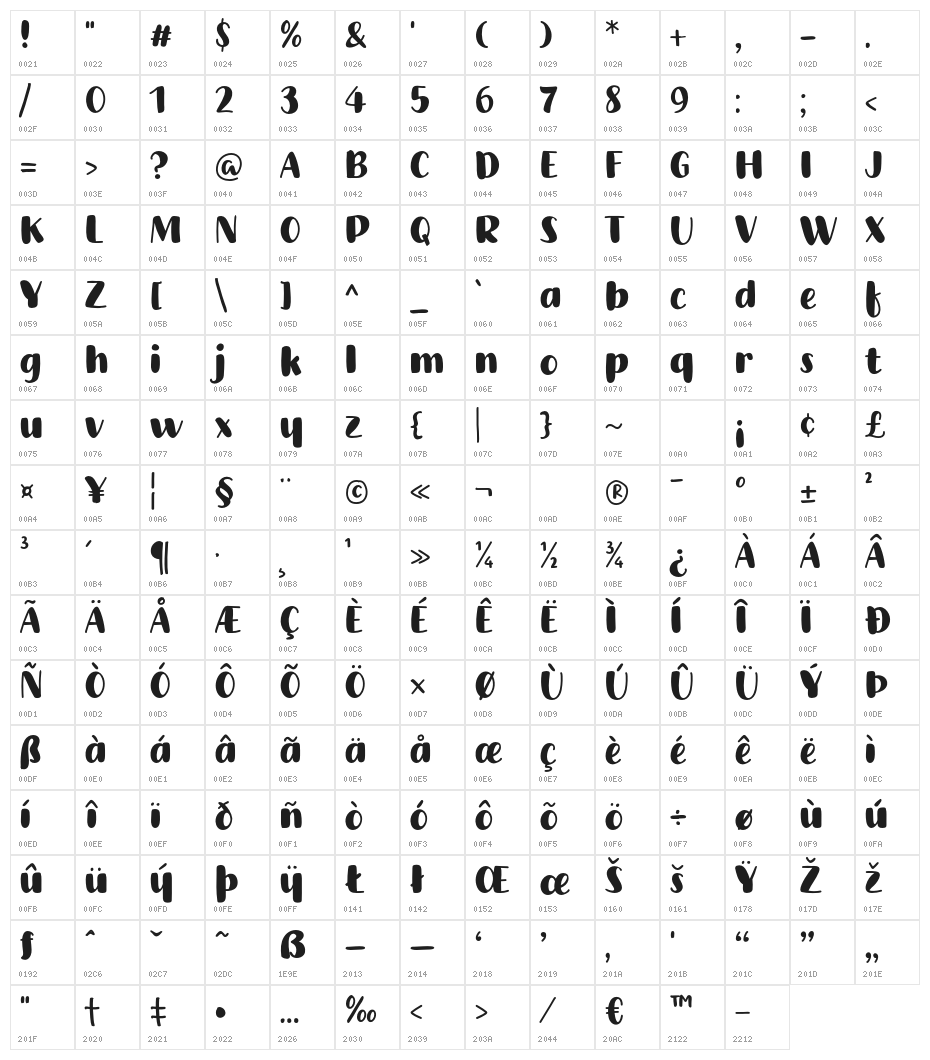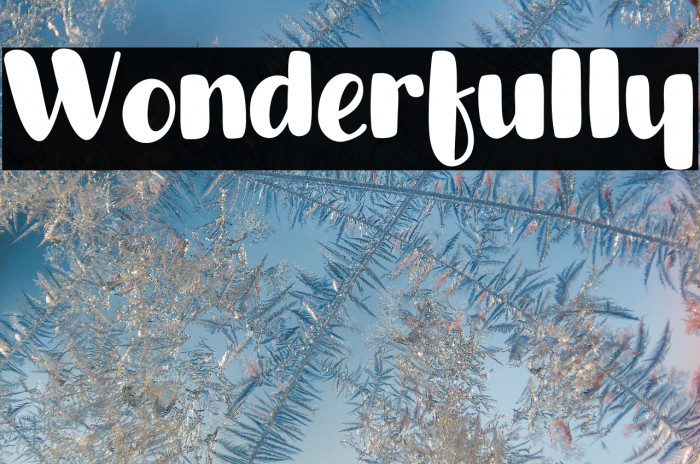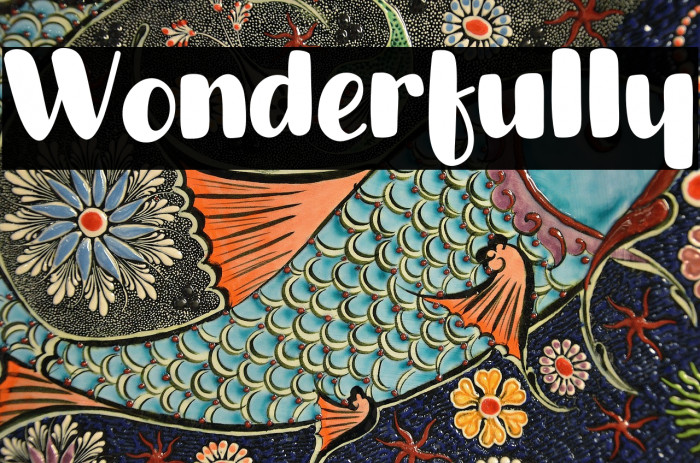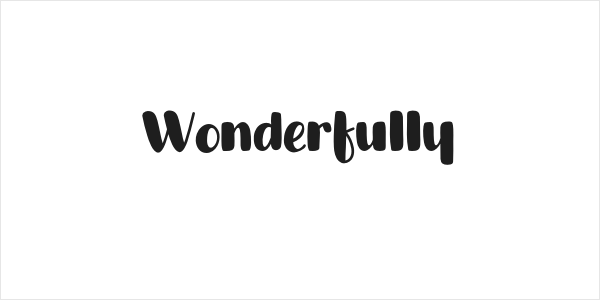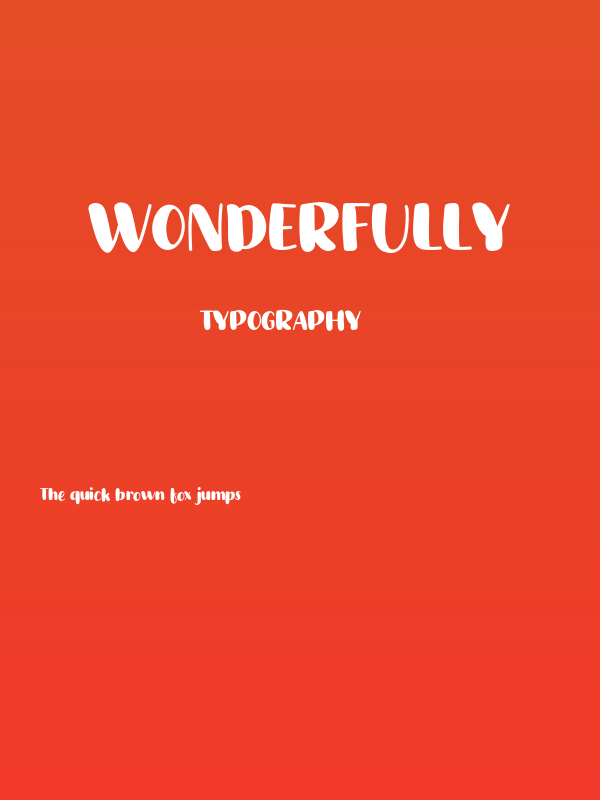
Wonderfully Font
Wonderfully Description
This font features a bold and playful script style with a handwritten feel. The letters are rounded and have a smooth flow, creating a sense of movement and energy. The uppercase and lowercase letters are well-balanced, with a consistent stroke width that adds to the font's bold appearance. The numbers and special characters maintain the same playful and dynamic style, making the font versatile for various uses. Its overall appearance is friendly and approachable, suitable for projects that require a personal touch.
| Overall Style | Playful, Energetic |
| Use Case | Logos, Headlines, Creative projects |
| Proposed Projects | Ideal for greeting cards, playful branding, children's books, and creative posters. |